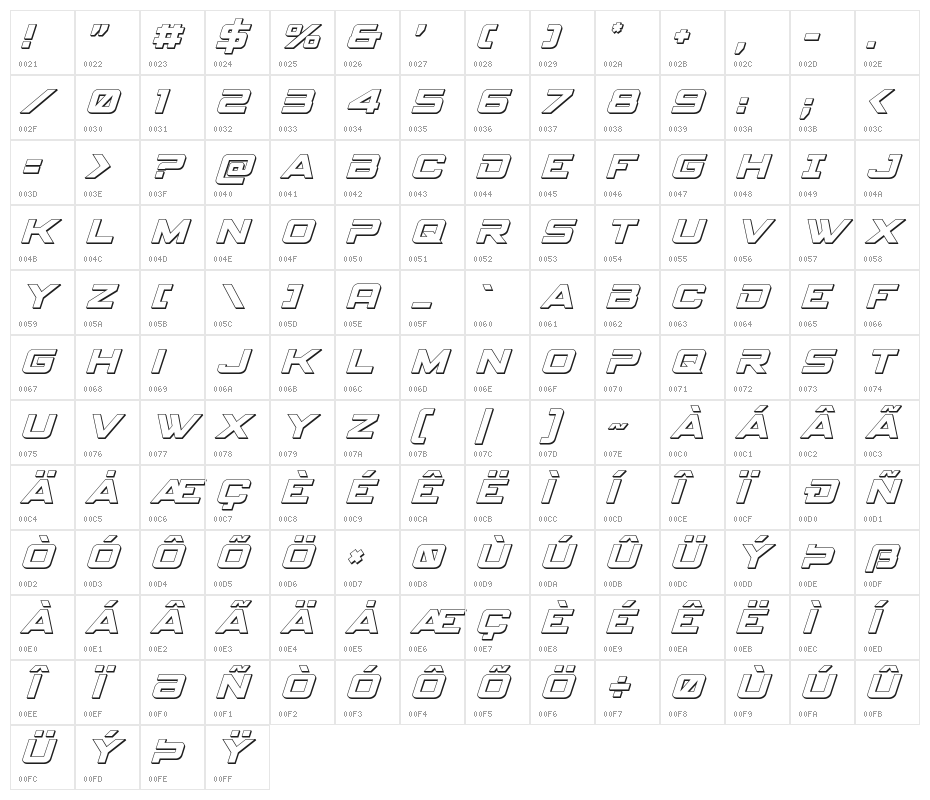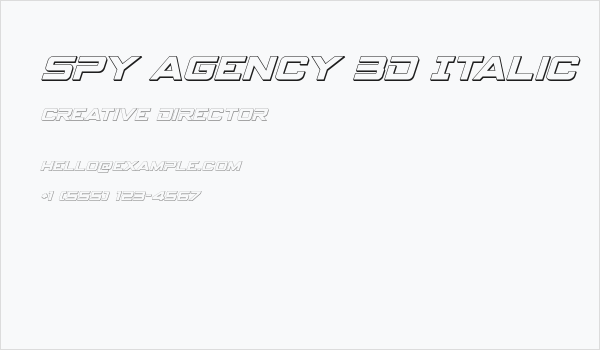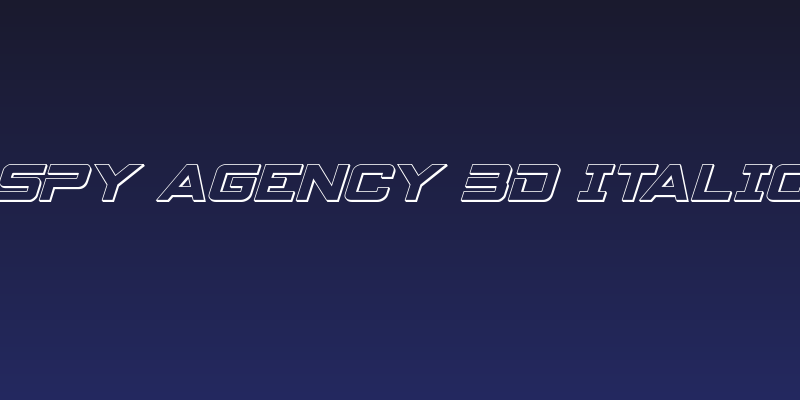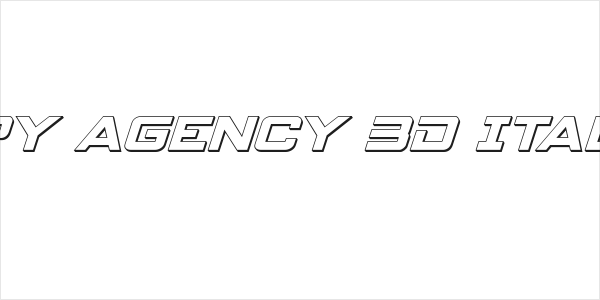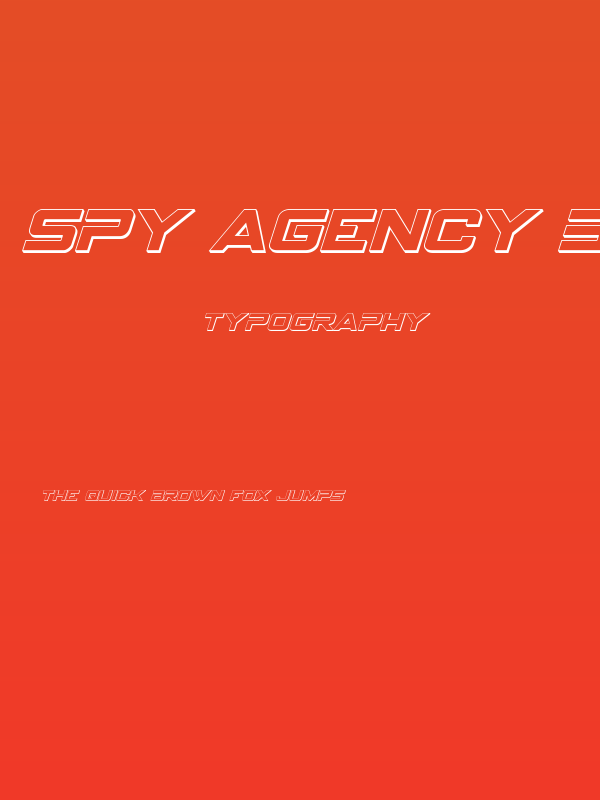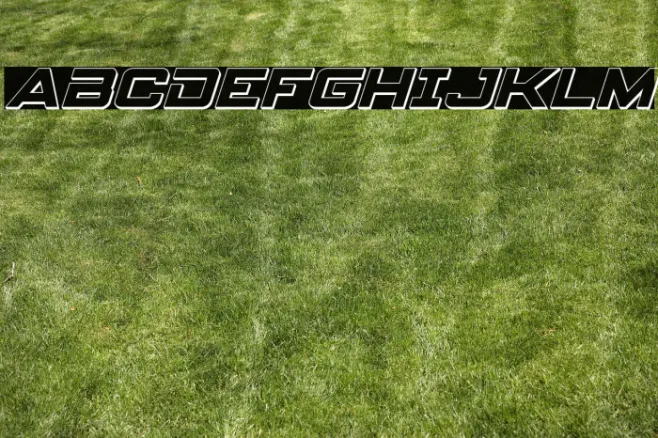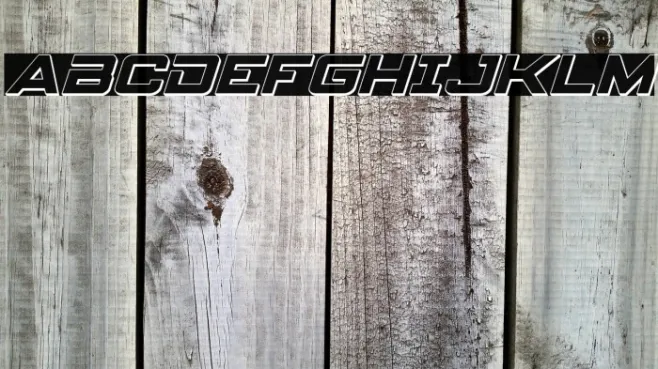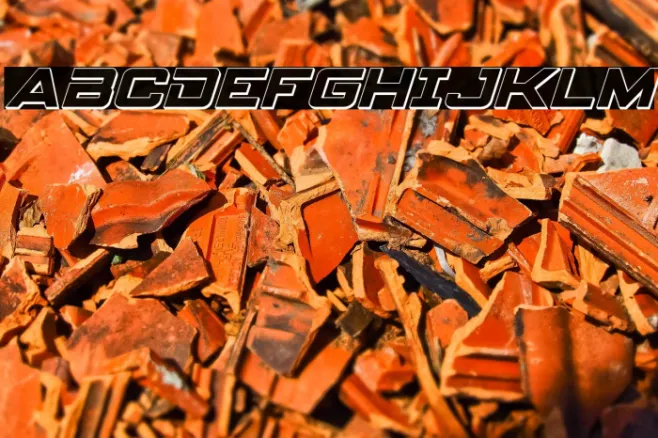
Spy Agency 3D Italic Font
Spy Agency 3D Italic Description
This font features a bold, three-dimensional style with an italic slant, giving it a dynamic and futuristic appearance. The characters are outlined, providing a sense of depth and movement. The uppercase letters are angular and geometric, while the numbers and special characters maintain a consistent style. The font's design is reminiscent of a high-tech or spy-themed aesthetic, making it ideal for projects that require a modern and edgy look.
| Proposed Projects | Ideal for use in video game titles, movie posters, technology branding, and any project requiring a modern, high-tech aesthetic. |